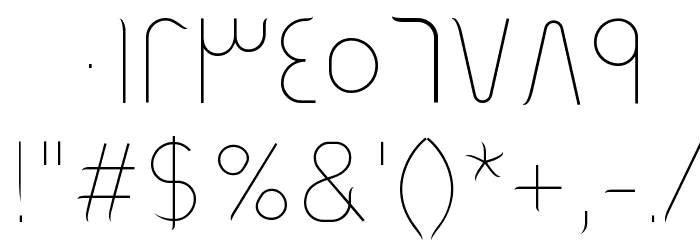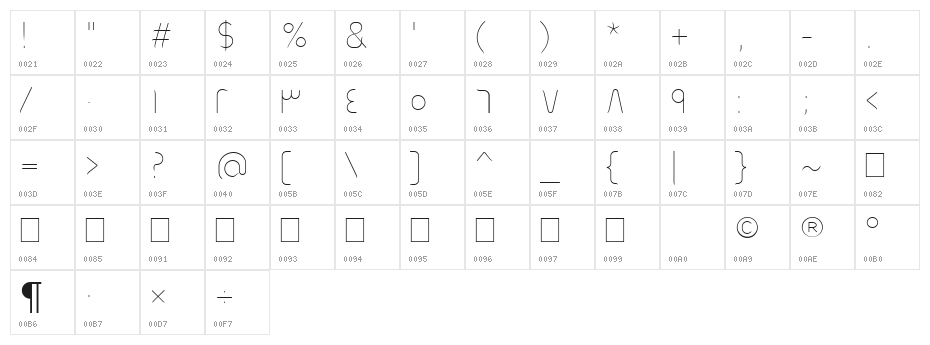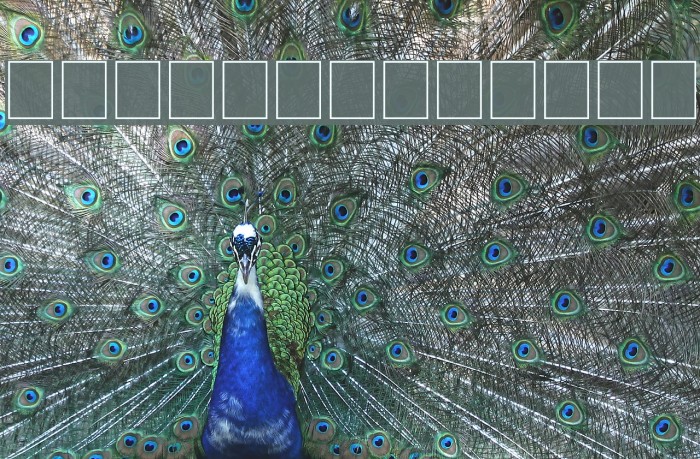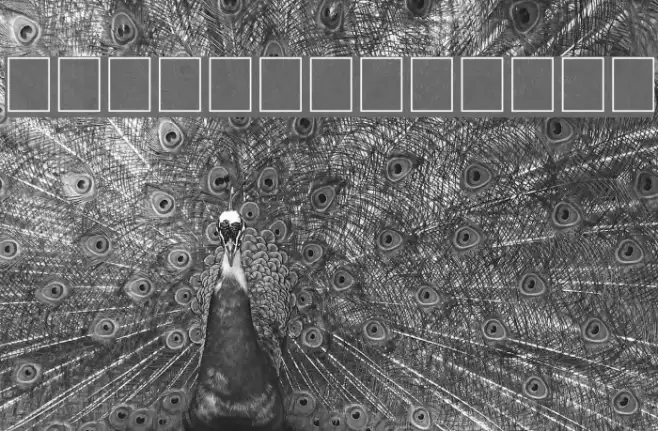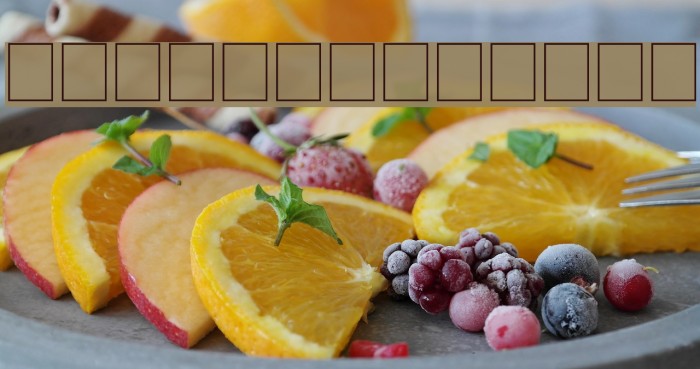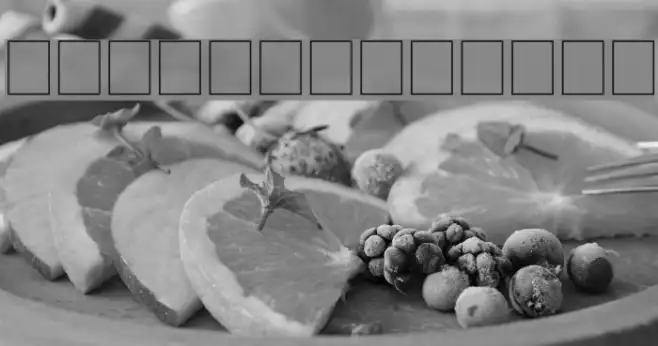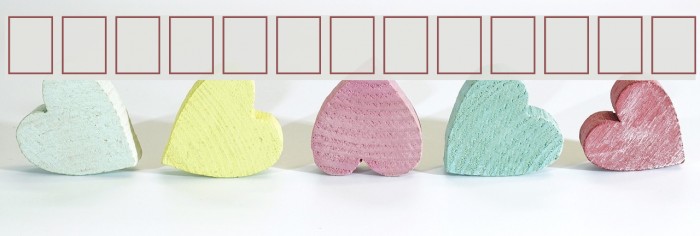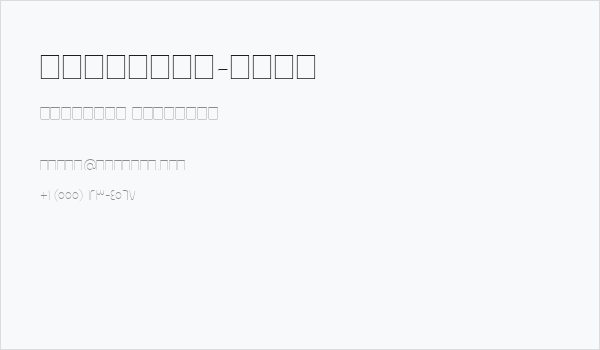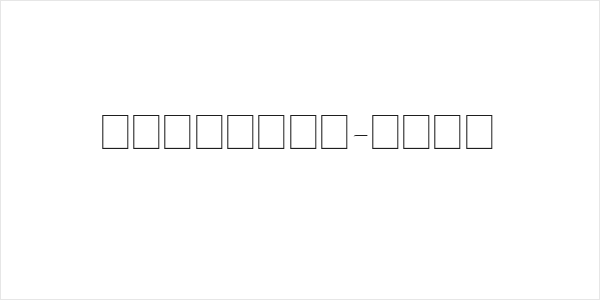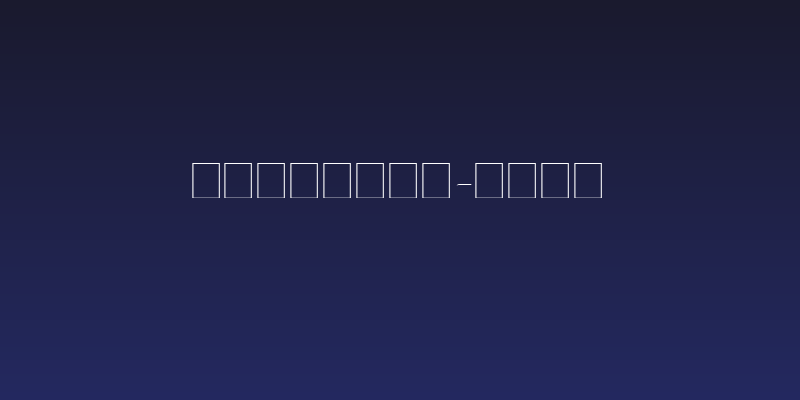
Mehrajan-Thin Font
Mehrajan-Thin Description
This font features a modern and minimalist design with thin, clean lines that create a sleek and sophisticated appearance. The characters are elegantly crafted with a consistent stroke width, giving it a uniform and balanced look. The numerals and special characters maintain the same thinness, ensuring a cohesive style throughout. The font's simplicity and clarity make it highly legible, even at smaller sizes, while its contemporary aesthetic adds a touch of elegance to any design.